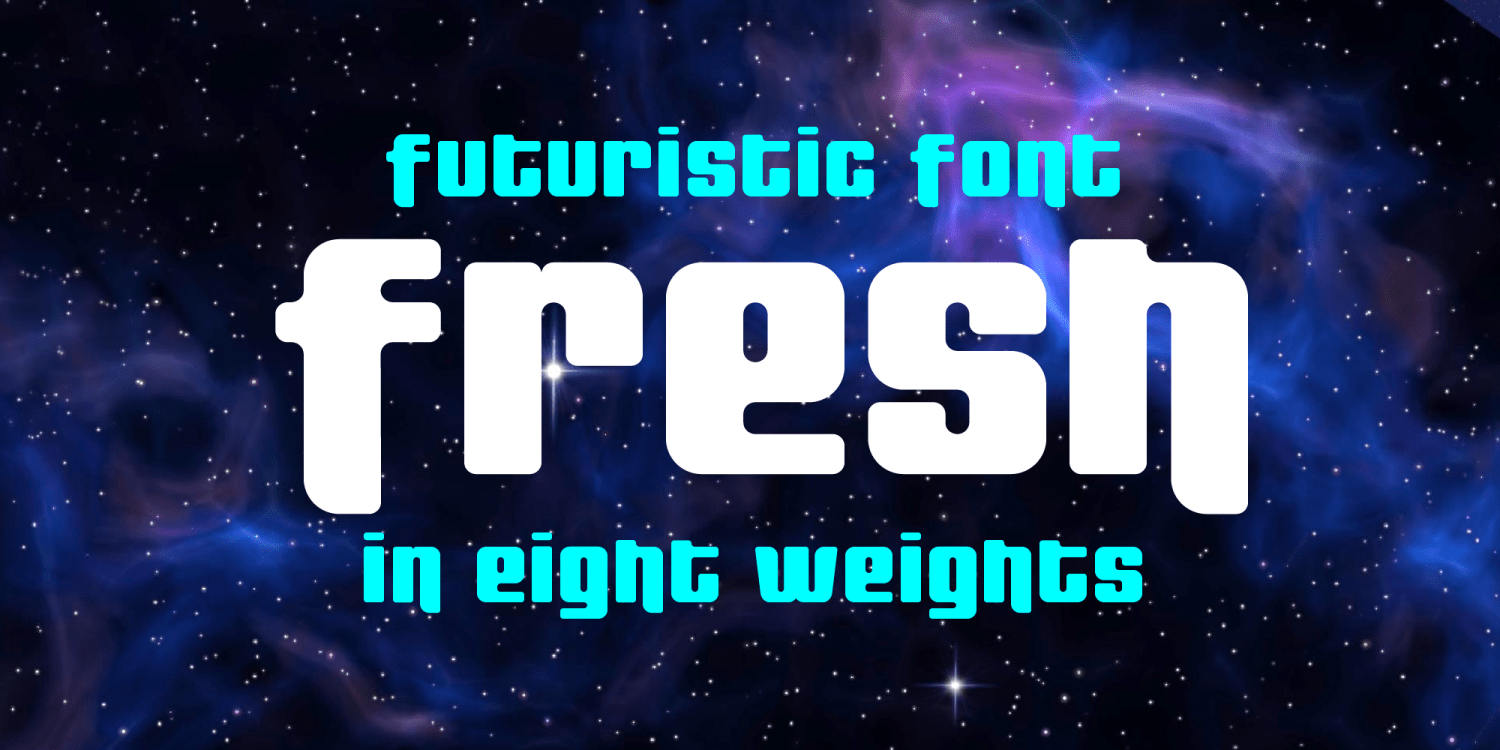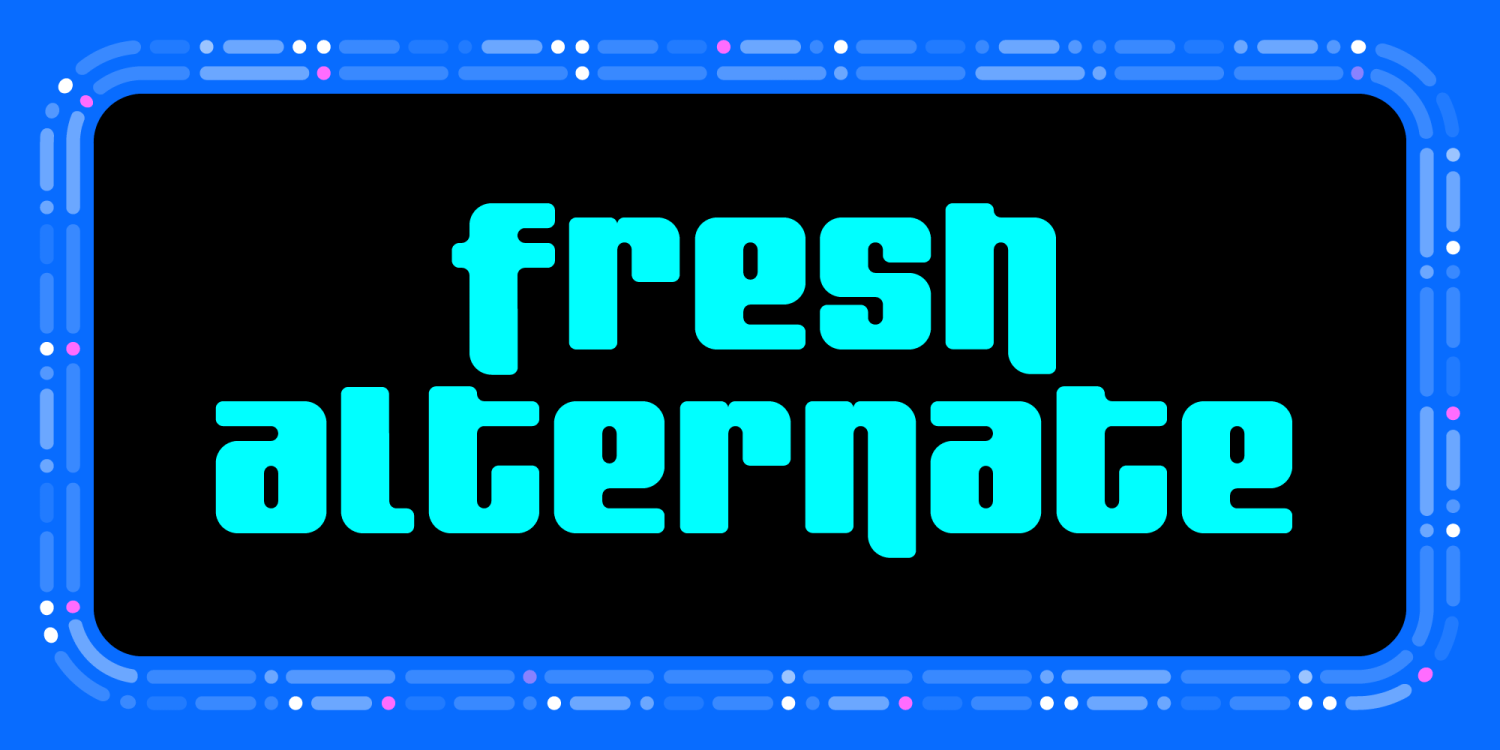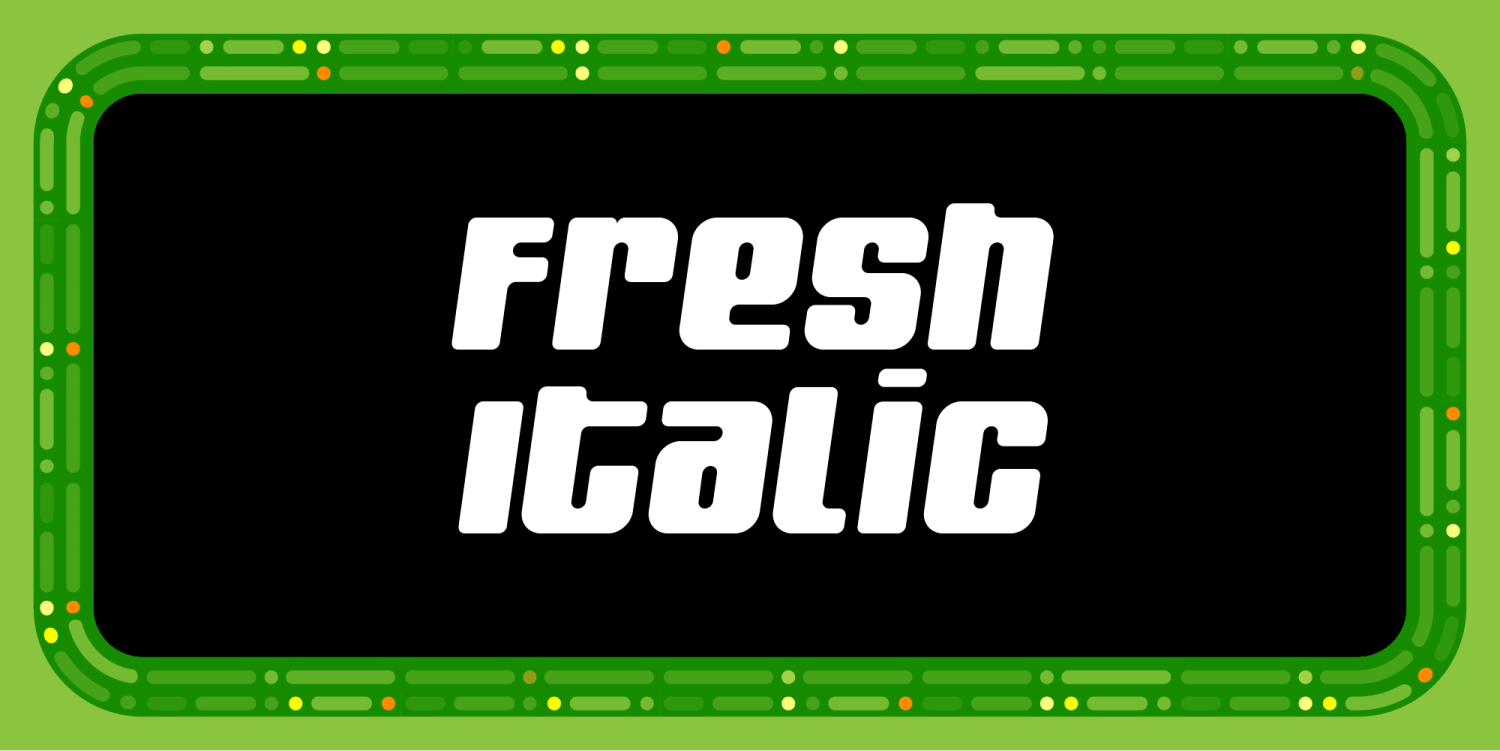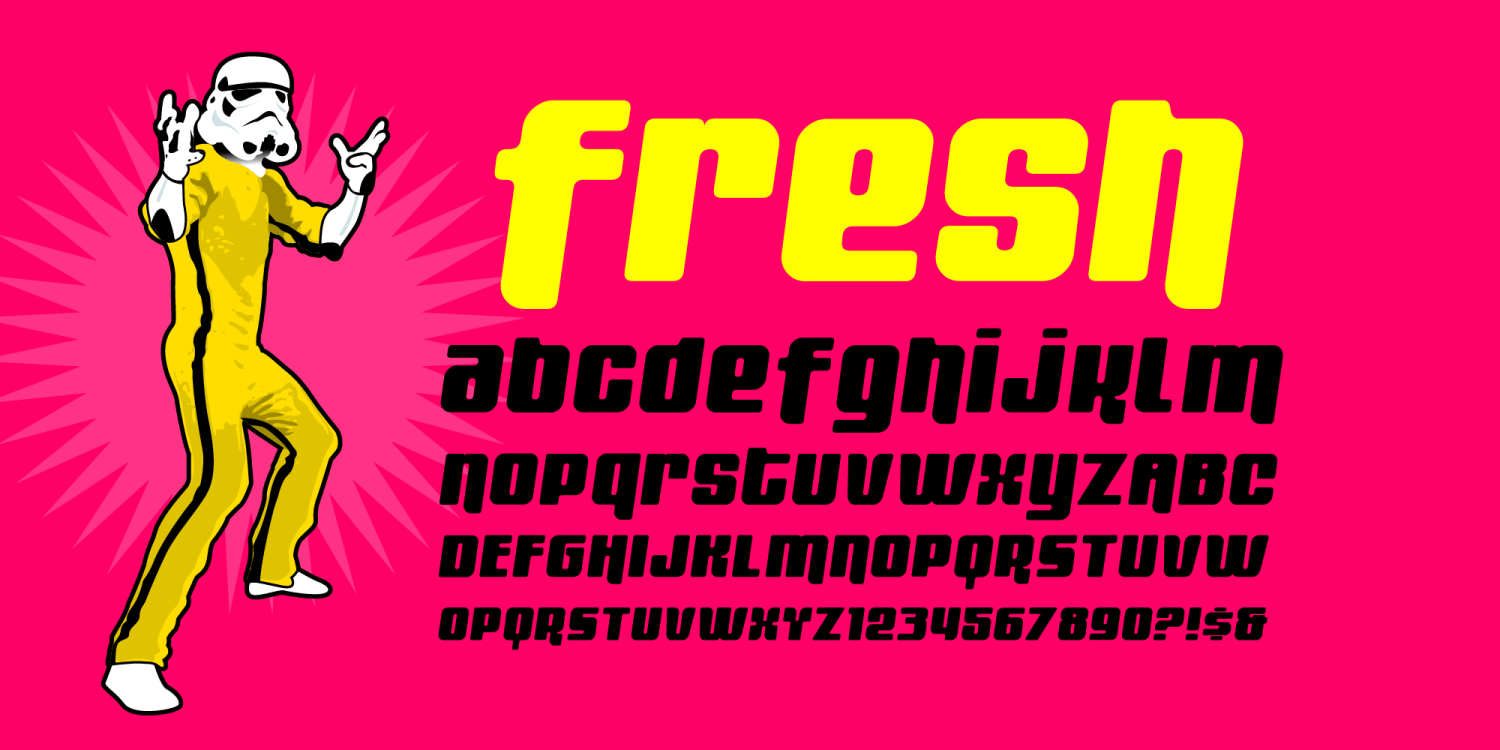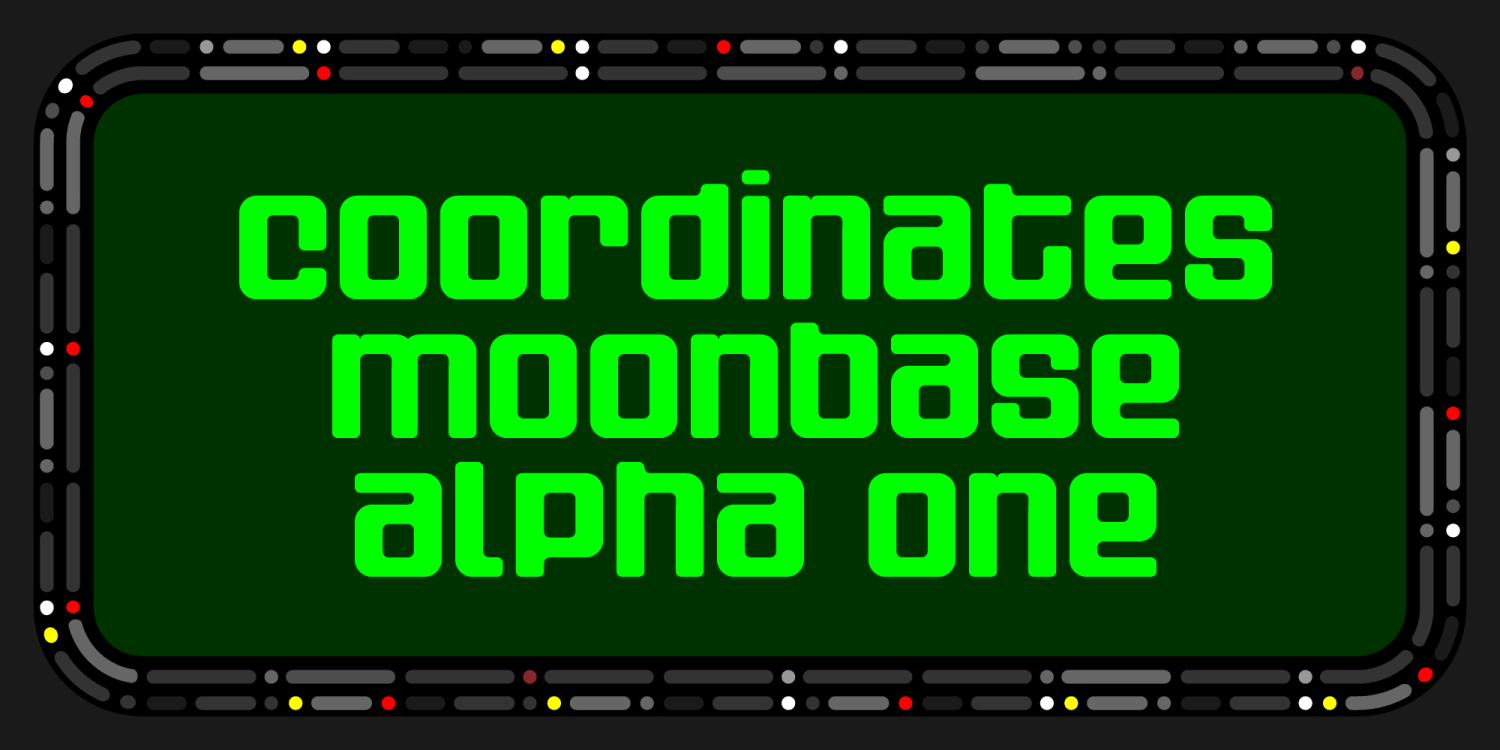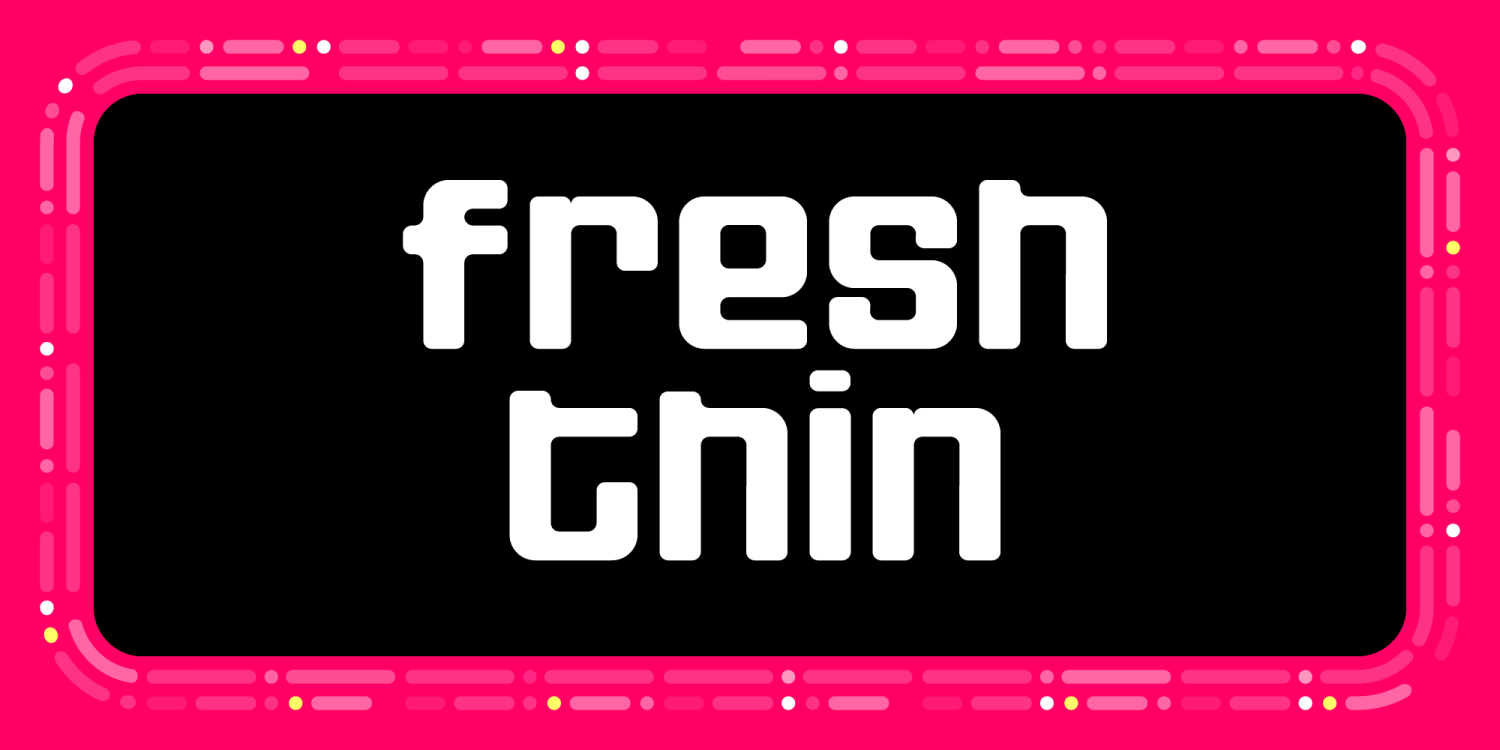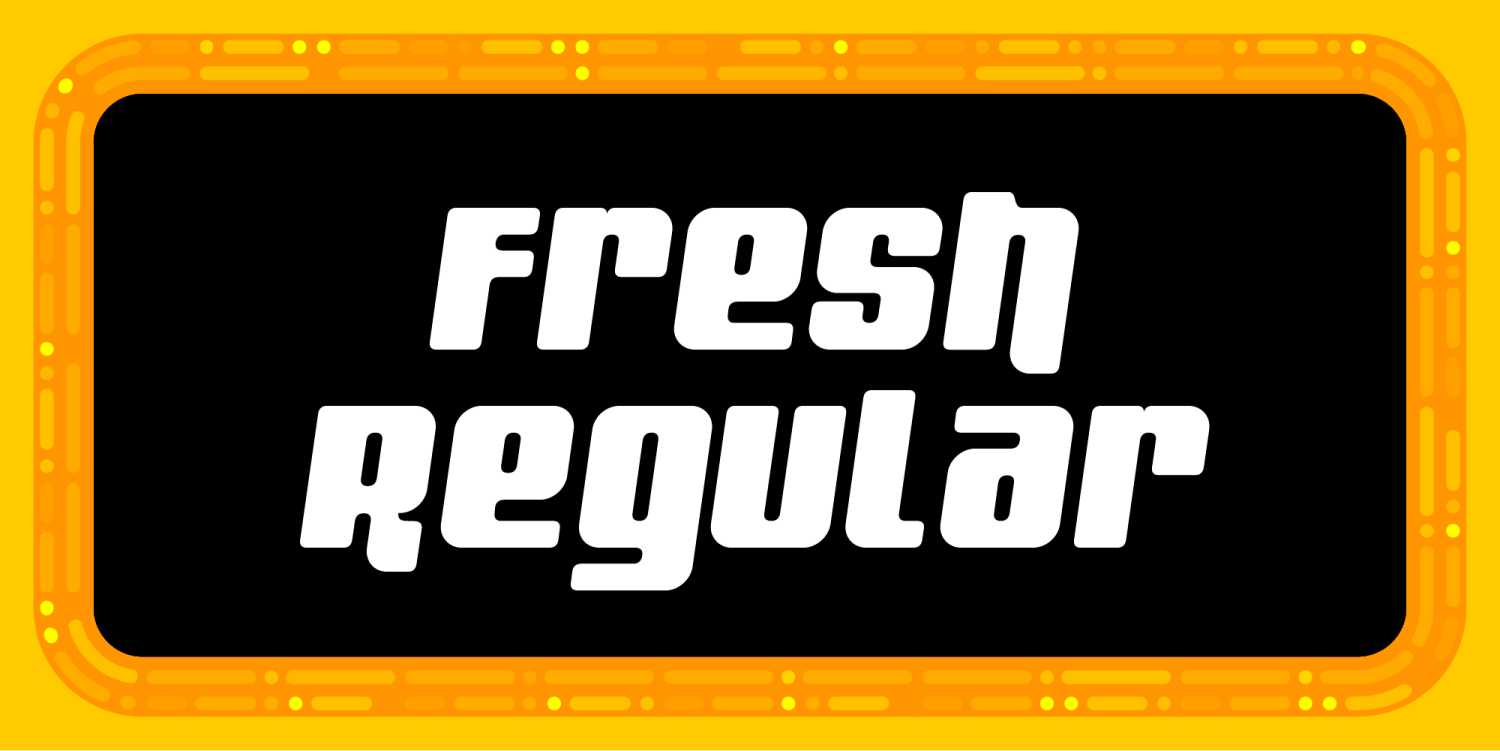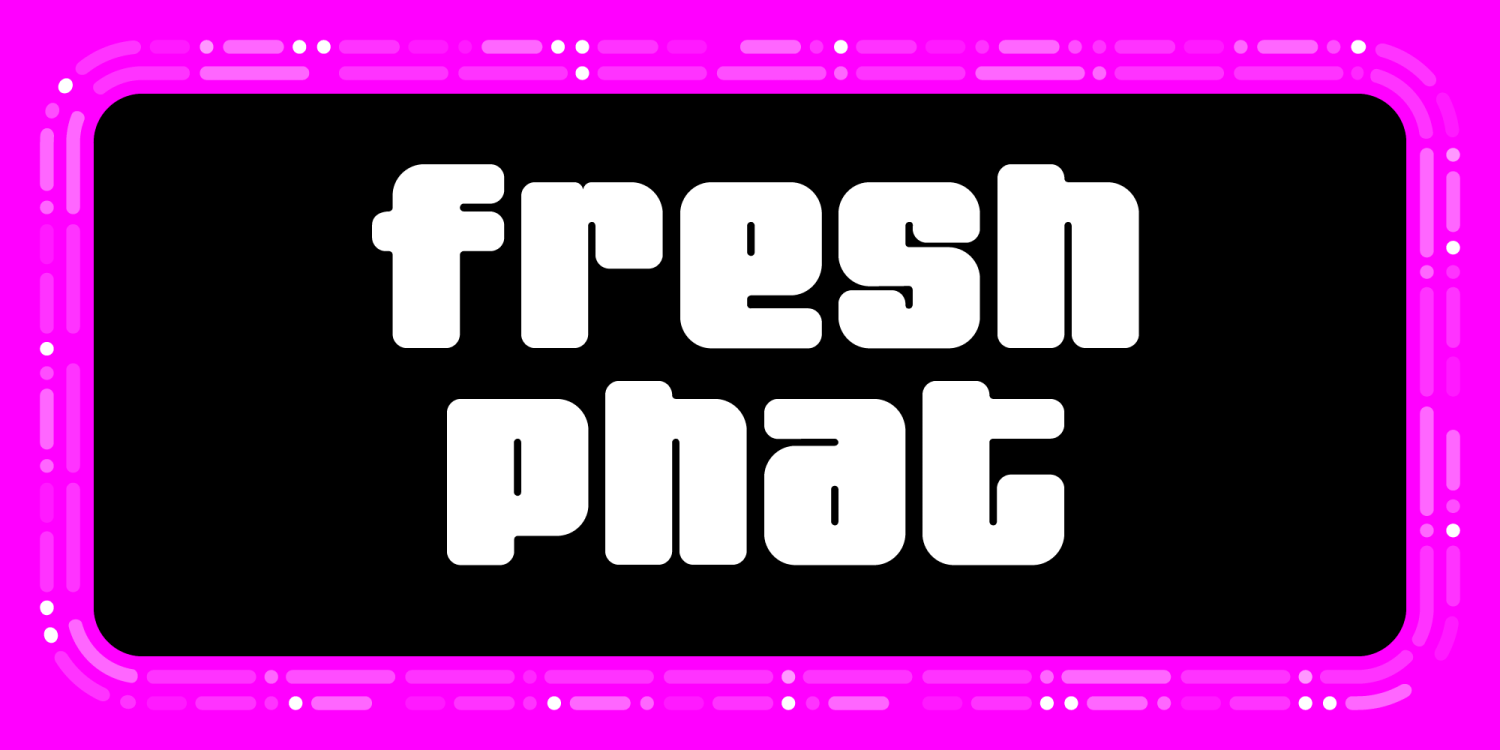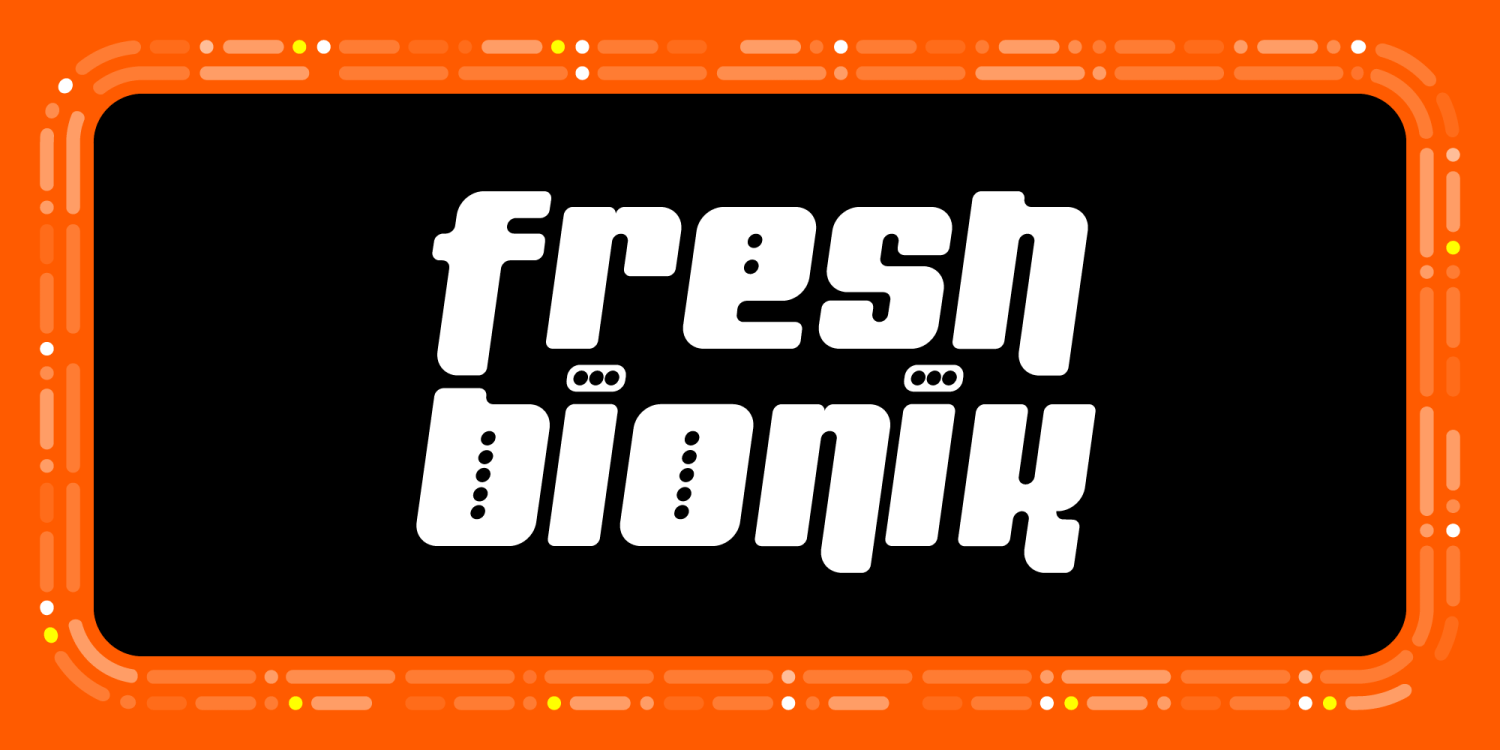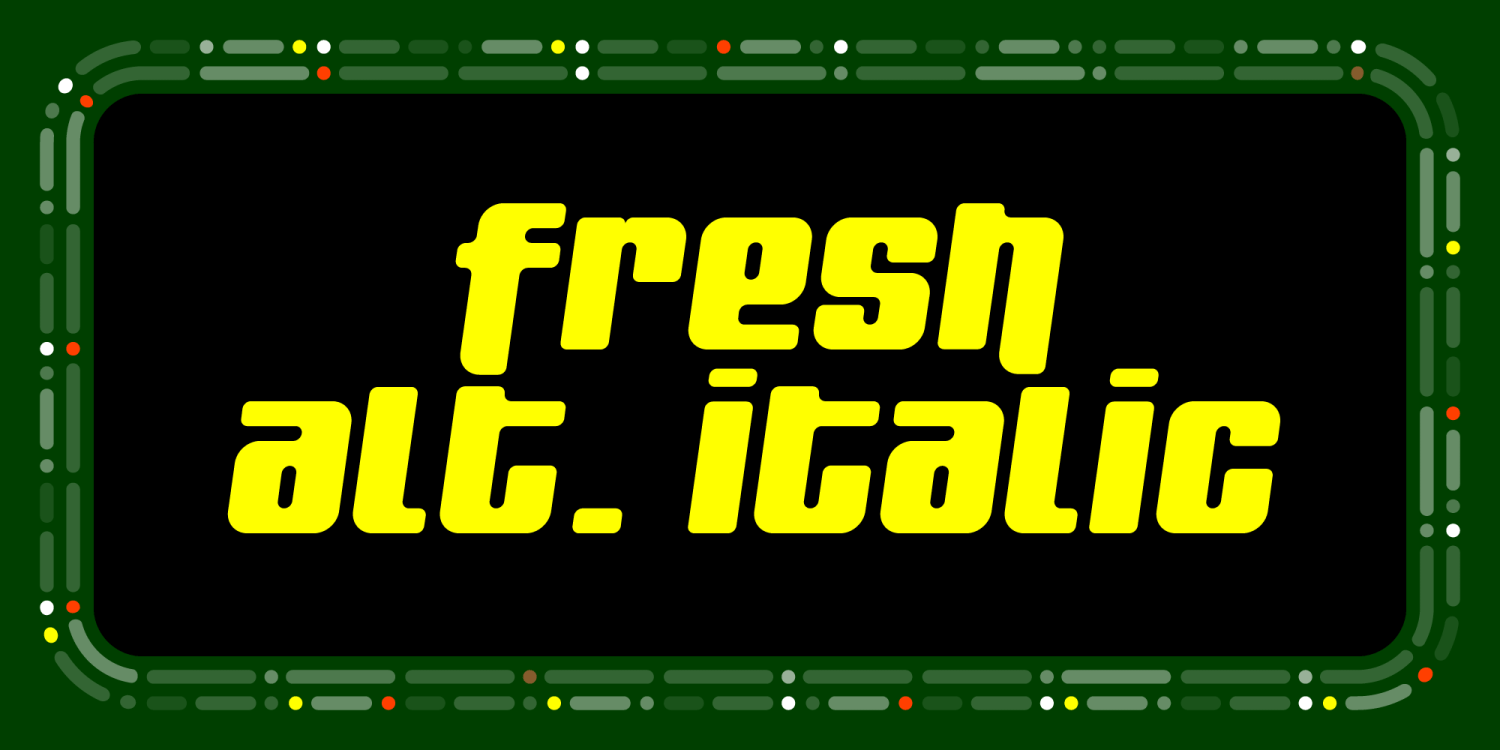
Fresh
The year is 1975. You are a super undercover bad ass. You are so tough, you karate kick random people on the street. High class mafioso pick up your tab at the finest restaurants. You have your own theme music and you have your own font, Fresh. Its smooth and streamlined, just like you. Cut to present day; you are 40 lbs. overweight, laying on the couch sipping a warm Schlitz and watching Ricki Lake. The mobsters and theme musicians have all abondoned you years ago. But the font hasn't changed. You need the money for lotto tickets and bus fare, so you decide to sell your last prize posession to Fontalicious for a measly 15 bucks. "Take care of this little baby," you sigh, as you wonder what untold fortunes the famous font foundry will generate from such a superstar font. You drift asleep on your raggity couch, never knowing Fontalicious gives away your precious gem for free to millions of designers around the world.